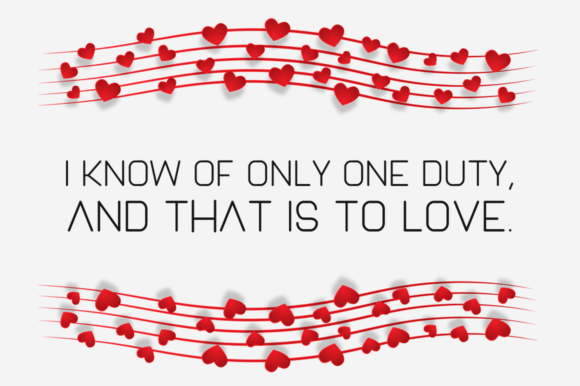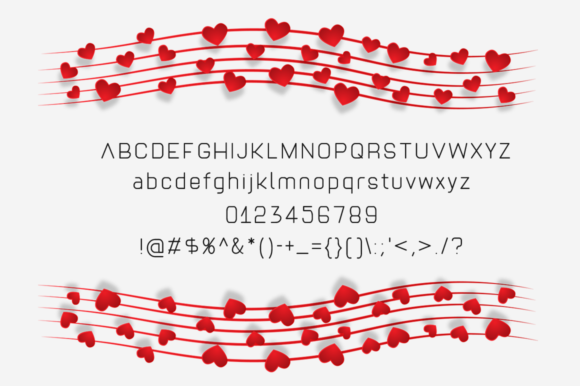
Discover the Charm of Adoring Font: A Playful yet Sophisticated Display Font
Are you on the hunt for a font that embodies the perfect blend of playfulness and sophistication? Look no further than Adoring Font, a stunning display font that is sure to captivate your audience with its versatile and contemporary charm. In this article, we’ll dive into the world of Adoring Font, exploring its unique features, uses, and benefits for designers and crafters alike.
The Essence of Adoring Font
Adoring Font is a beautifully crafted display font that exudes a sense of minimalism while still conveying a high level of sophistication. Its clean lines, elegant curves, and carefully balanced proportions make it an ideal choice for a wide range of design projects, from branding and advertising to packaging and digital media.
One of the standout features of Adoring Font is its versatility. Whether you’re looking to create a bold and eye-catching headline or a more subtle and understated text element, this font is up to the task. Its contemporary charm and playful feel make it perfect for designers who want to add a touch of personality to their work.
Key Features of Adoring Font
• Playful yet sophisticated design: Adoring Font boasts a unique blend of playfulness and sophistication, making it perfect for designers who want to create engaging and memorable designs.
• Minimalist aesthetic: With its clean lines and elegant curves, Adoring Font has a distinctly minimalist feel that works beautifully in a variety of design contexts.
• Versatile and contemporary: This font is designed to be versatile and adaptable, making it perfect for use in a wide range of design projects, from digital media to print materials.
• Easy to read: Despite its playful feel, Adoring Font is remarkably easy to read, even at smaller sizes.
Uses for Adoring Font
So, what can you use Adoring Font for? The possibilities are endless! Here are a few ideas to get you started:
• Branding and logos: Adoring Font is a great choice for creating memorable and engaging brand identities.
• Headlines and titles: Use Adoring Font to create bold and eye-catching headlines that grab your audience’s attention.
• Packaging design: Add a touch of personality to your packaging designs with Adoring Font.
• Digital media: Adoring Font works beautifully in digital media, including social media graphics, website headers, and more.
Tips for Using Adoring Font
To get the most out of Adoring Font, here are a few tips to keep in mind:
• Experiment with different sizes: Adoring Font works beautifully at a range of sizes, from large display fonts to smaller text elements.
• Pair with complementary fonts: Try pairing Adoring Font with complementary fonts to create visually interesting and dynamic designs.
• Play with color: Adoring Font looks great in a range of colors, so don’t be afraid to experiment and find the perfect hue for your design.
In conclusion, Adoring Font is a truly special display font that offers a unique blend of playfulness and sophistication. Its versatility, contemporary charm, and ease of use make it an ideal choice for designers and crafters looking to add a touch of personality to their work. Whether you’re creating branding and logos, headlines and titles, or packaging designs, Adoring Font is sure to inspire and delight.